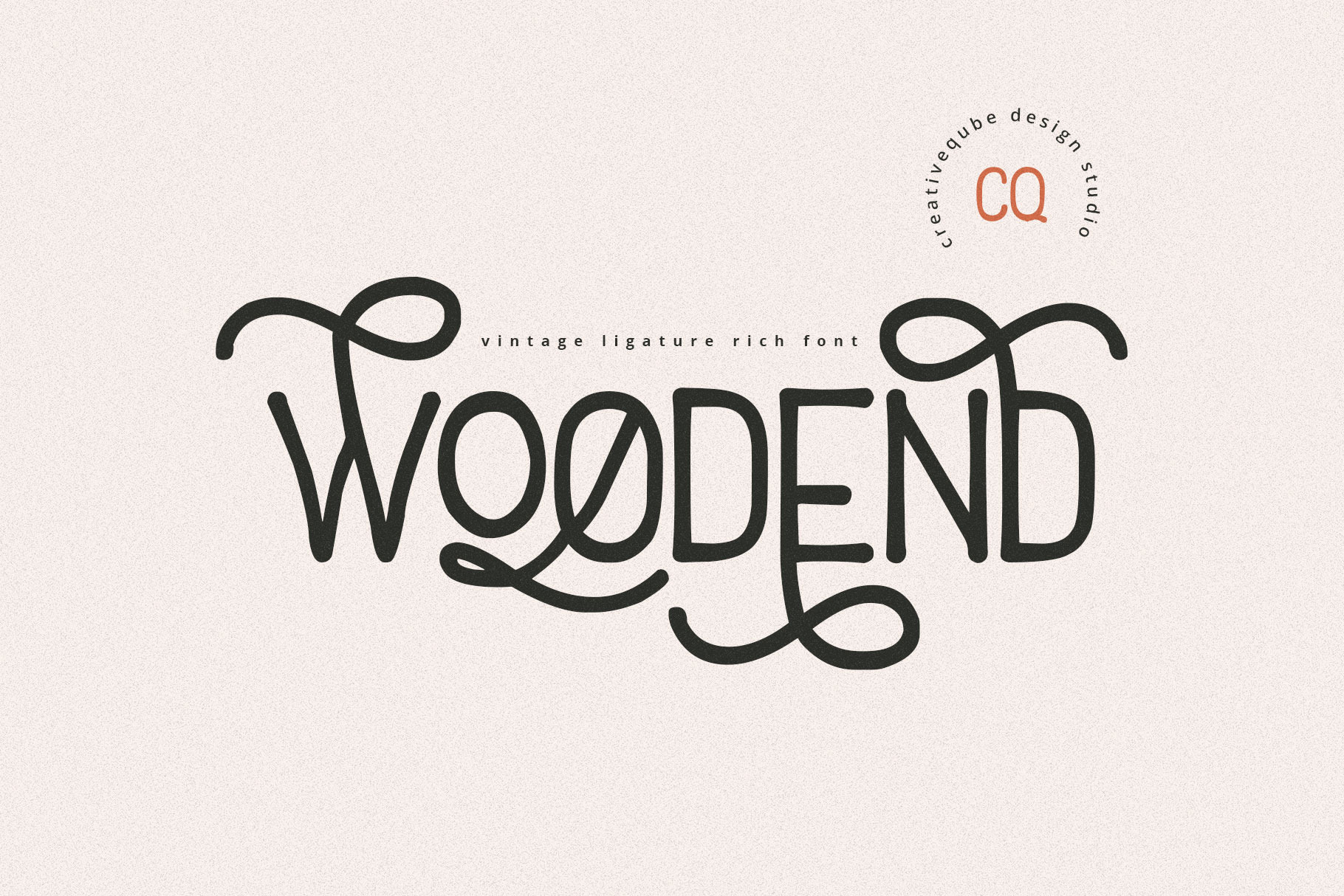
Woodend Retro Font Typeface
We are so excited to introduce our first Retro style font - Woodend! Loaded with extras, alternates, swashes, and standard ligatures, this font is oozing with character.